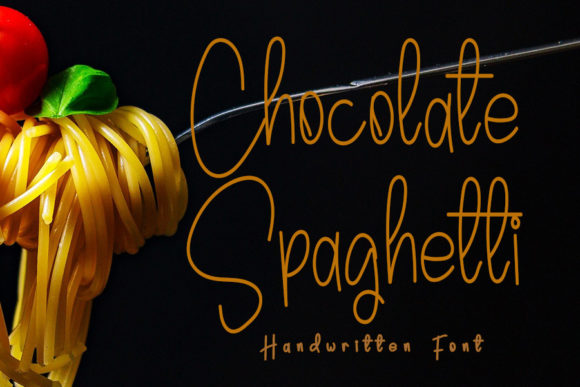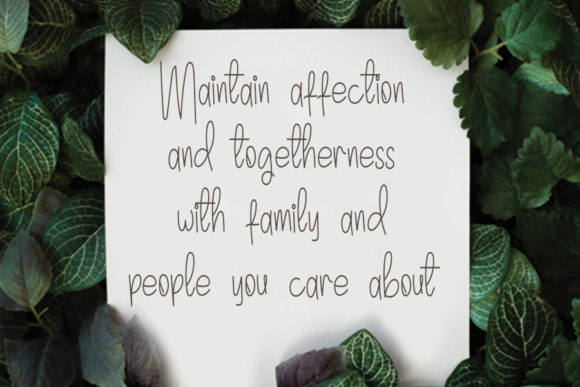
About Chocolate Spaghetti Font
Chocolate Spaghetti is a thin and friendly handwritten font. Simple and easy to use, this font will be very beautiful if you mix it with your various craft designs.